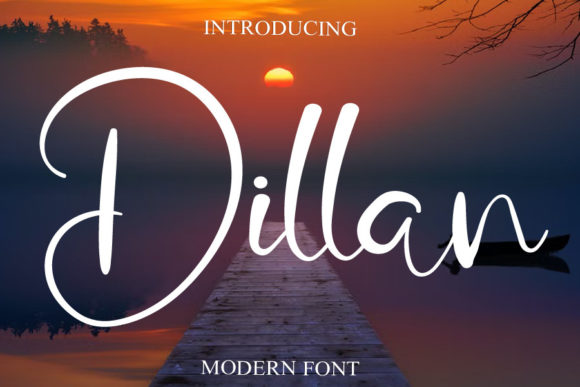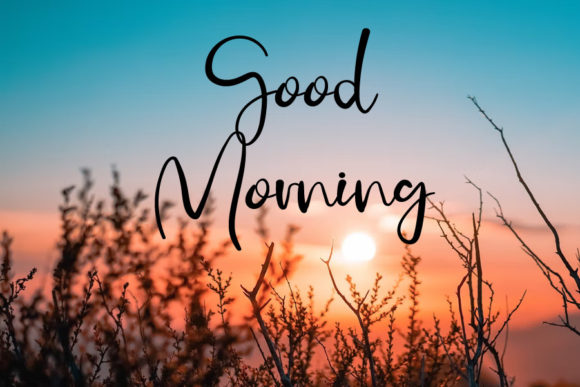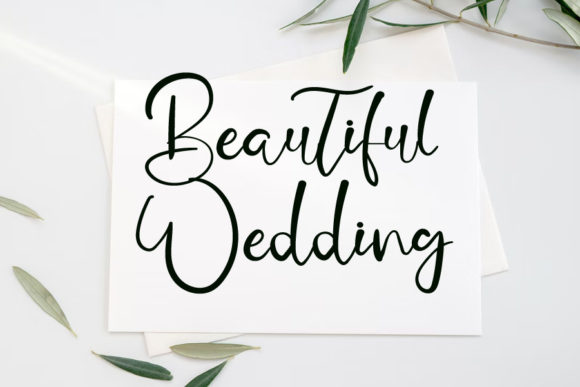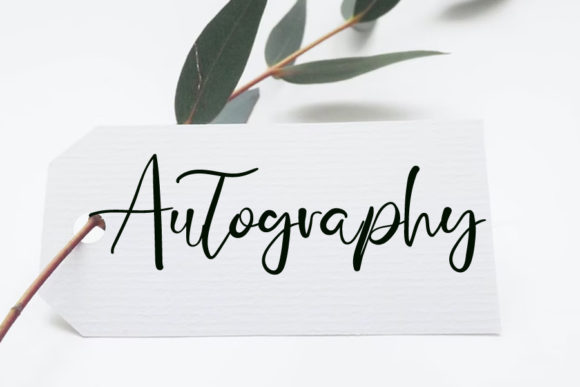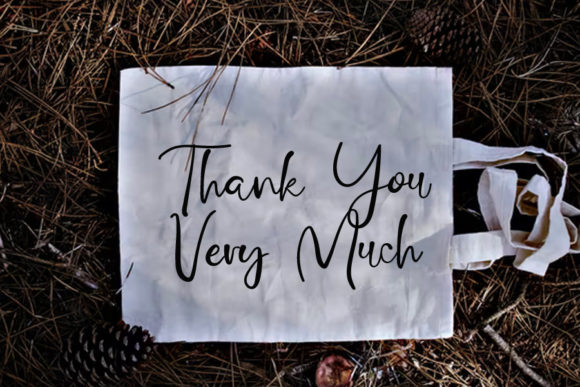
About Dillan Font
“Dillan” is a script font with a distinctive and graceful character. Its captivating style is bound to leave a lasting impression, making it an exceptional choice for crafting visually stunning designs. With the added advantage of PUA encoding, accessing all the intricate glyphs and decorative swashes is a seamless process.
The font’s graceful and flowing letterforms contribute to an aura of sophistication and allure in your projects. Whether you’re working on logos, branding, invitations, posters, or social media content, “Dillan” injects your designs with a ravishing quality that captures attention.
The font’s versatility lends itself to a wide range of design concepts. Its timeless appeal can evoke both modern elegance and classic charm, allowing it to adapt effortlessly to various applications. By incorporating “Dillan” into your designs, you infuse them with an essence of refinement and individuality.
In summary, “Dillan” transcends being just a font—it’s a creative tool that empowers you to convey your ideas with grace and style. Its unique character, combined with the convenience of accessing a diverse array of glyphs and swashes, positions it as a valuable asset for designers aspiring to create captivating and visually remarkable designs.